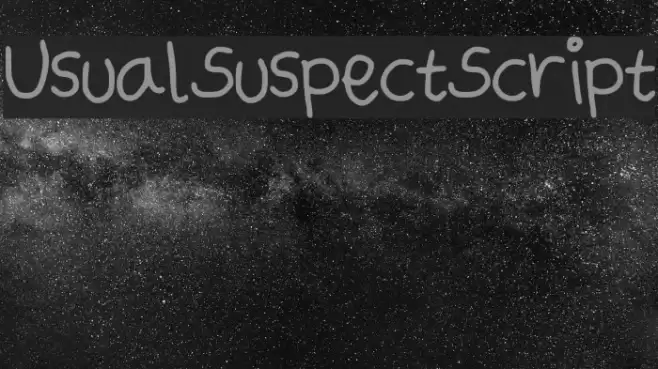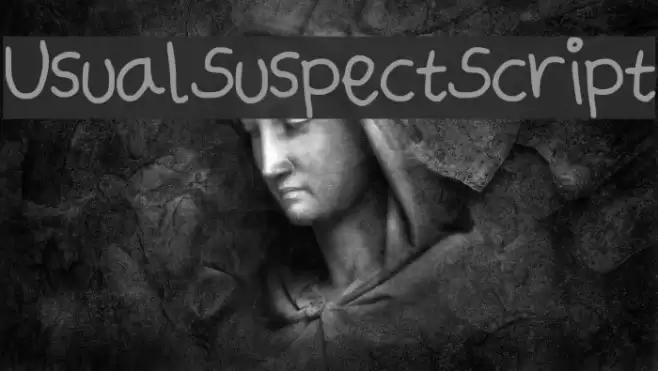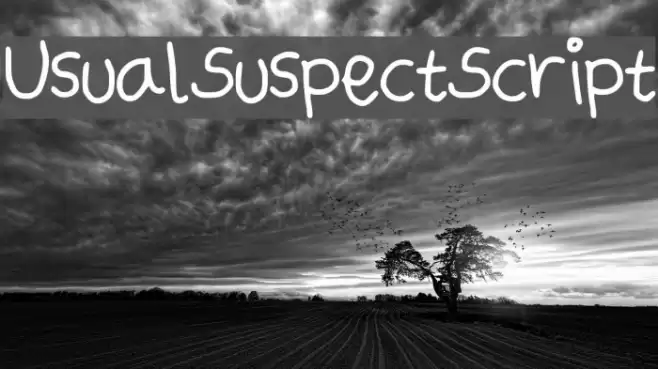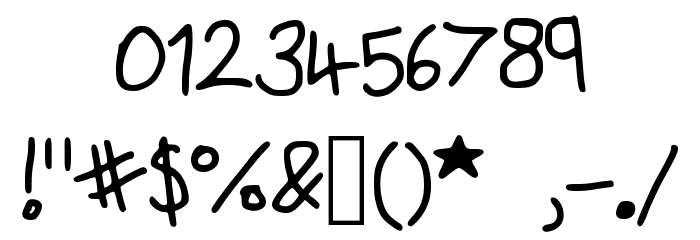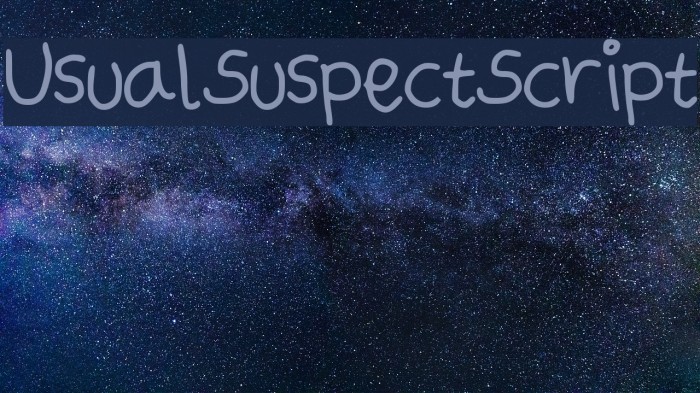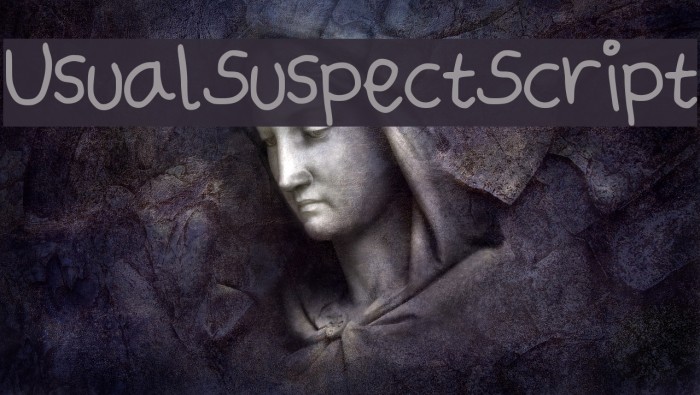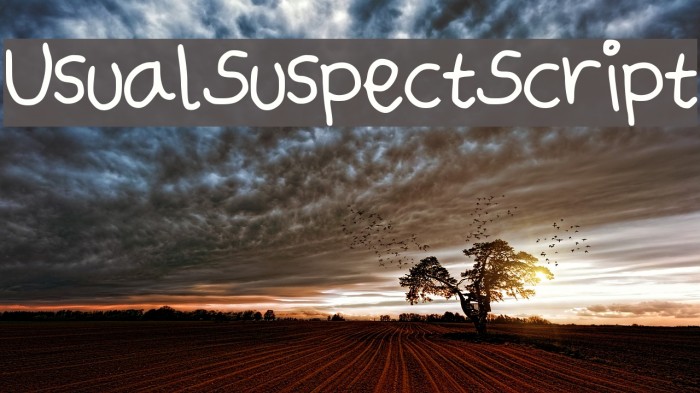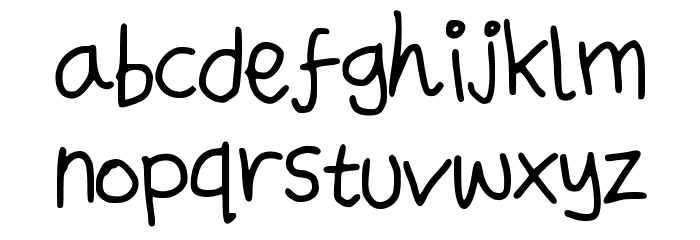
UsualSuspectScript Font
UsualSuspectScript Description
This font features a playful and casual handwritten style, characterized by its smooth, flowing lines and slightly irregular shapes. The letters have a natural, organic feel, reminiscent of a personal note or informal correspondence. The uppercase and lowercase letters are well-balanced, with a consistent stroke width that maintains readability while adding a touch of whimsy. The numerals and special characters are crafted with the same attention to detail, ensuring a cohesive look across all glyphs. This font exudes a friendly and approachable vibe, making it suitable for projects that require a personal touch.
A playful, casual handwritten font with smooth, flowing lines and a friendly vibe from Uncategorized fonts.
- Proposed Projects: Ideal for greeting cards, invitations, personal branding, and social media graphics.
- Overall Style: Casual
- Use Case: Logos, Invitations, Social Media Graphics